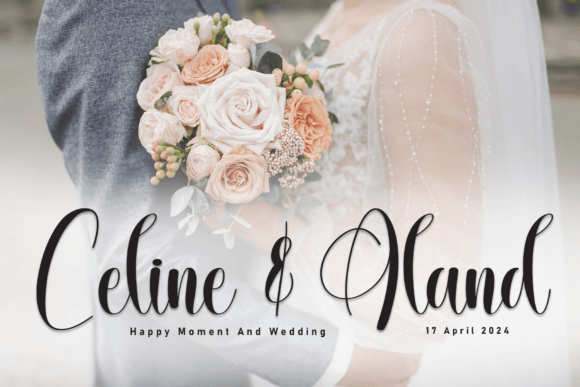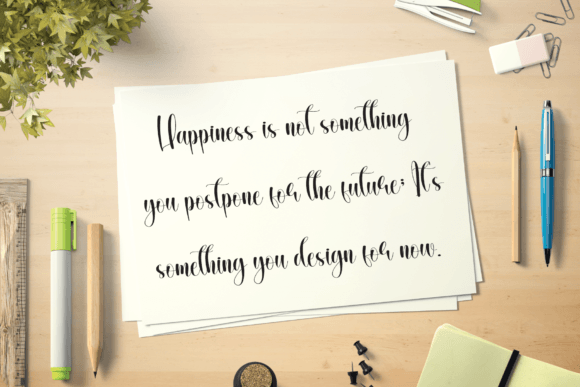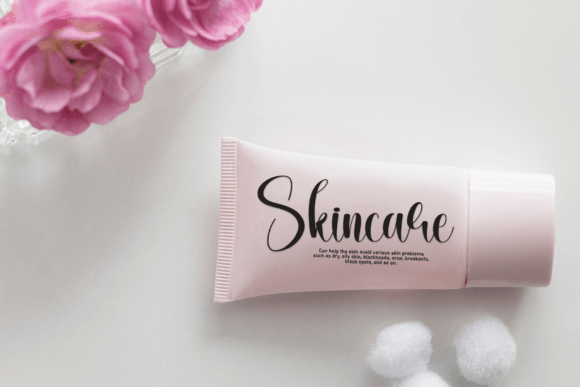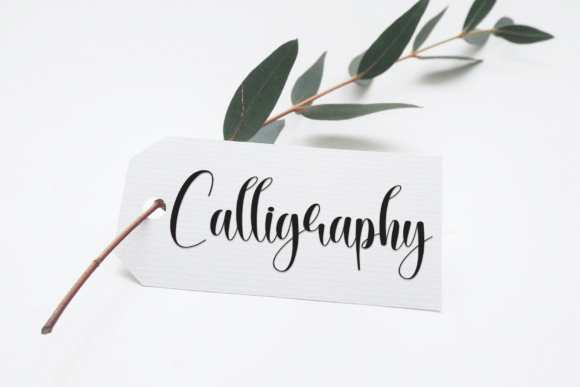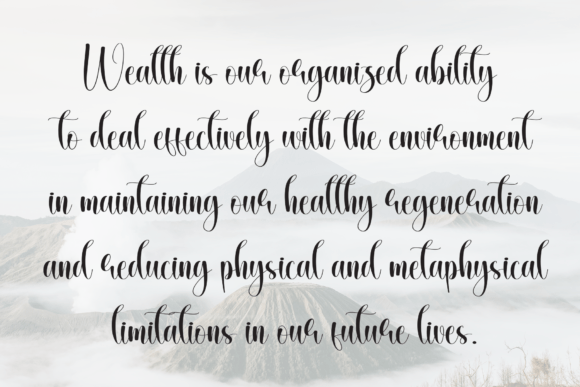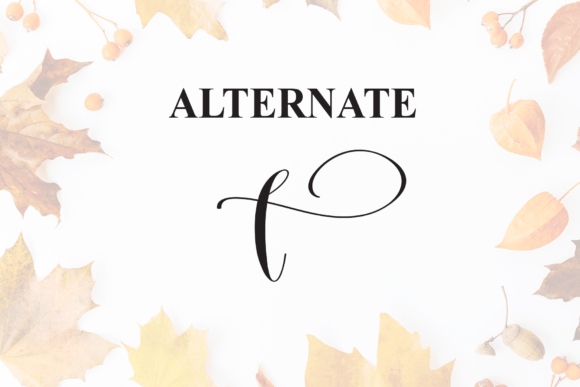
The Magic of Autumn Font: Elevate Your Designs with Elegance
I’ll never forget the time I was working on a wedding invitation project, and my client asked for a font that would make their special day feel like a fairytale. I scoured the internet, tried out countless fonts, but nothing seemed quite right. That was until I stumbled upon Autumn Font. This stunning script font has been a game-changer for my designs, and I’m excited to share its beauty with you.
Autumn Font has quickly become one of my go-to fonts for any project that requires a touch of elegance. Here’s what I love:
- ✨ Incredibly elegant and stylish script font
- ✅ Perfect for wedding invitations, thank you cards, quotes, and greeting cards
- ✅ Works beautifully for logos, business cards, and other designs that need a handwritten touch
While Autumn Font is a stunning addition to any design, there are a few quirks to keep in mind:
- ⚠️ Some of the letters have a bit of a quirky, handwritten feel, which may not work for very formal designs
- 🤔 The font can be a bit overused, so be mindful of how often you use it in a single design
The Story Behind Autumn Font
Autumn Font was designed by a talented font designer who wanted to create a font that would evoke the feeling of fall. With its elegant, cursive lines and quirky personality, Autumn Font is the perfect addition to any design that needs a touch of whimsy.
| What is Autumn Font? | Autumn Font is a stylish and incredibly elegant script font that’s perfect for designs that need a handwritten touch. |
| Can I use Autumn Font for my wedding invitations? | Absolutely! Autumn Font is a popular choice for wedding invitations and other formal designs. |
| Is Autumn Font easy to read? | Yes, Autumn Font is highly legible, even at smaller font sizes. However, be mindful of the font size and style to ensure it’s readable for your audience. |